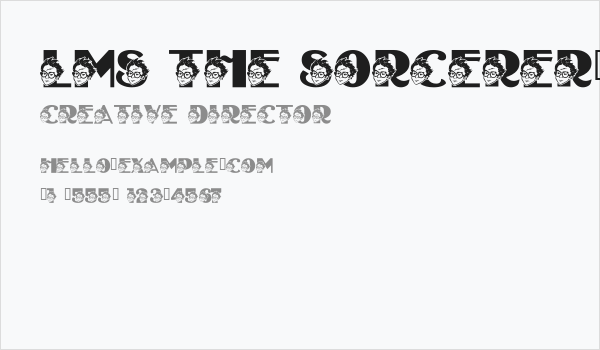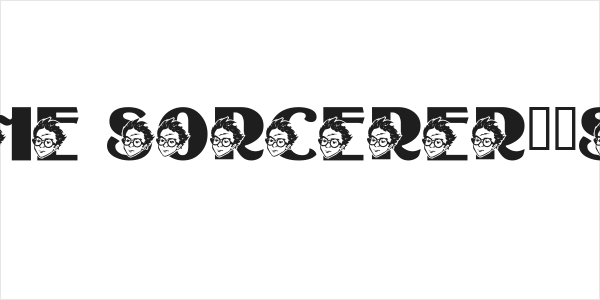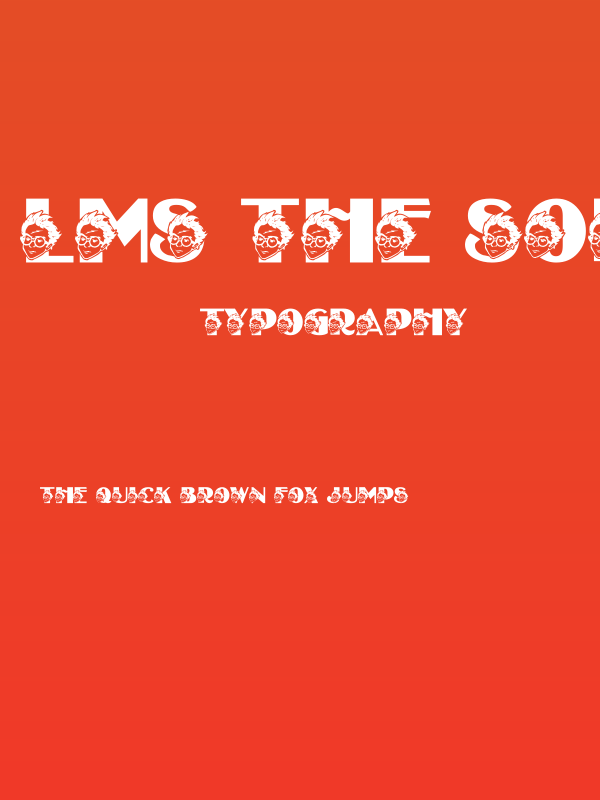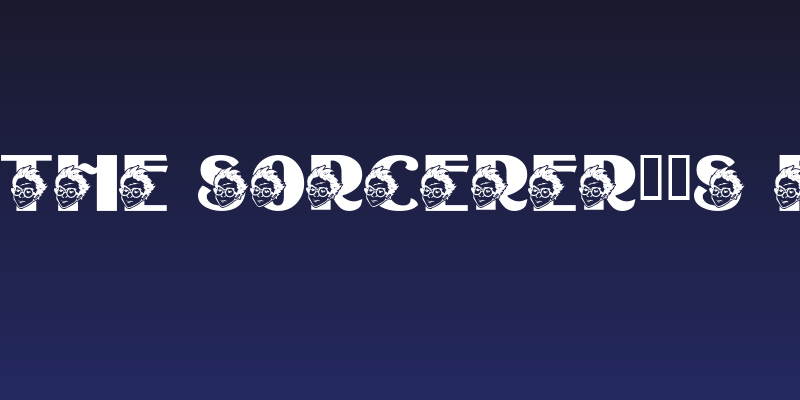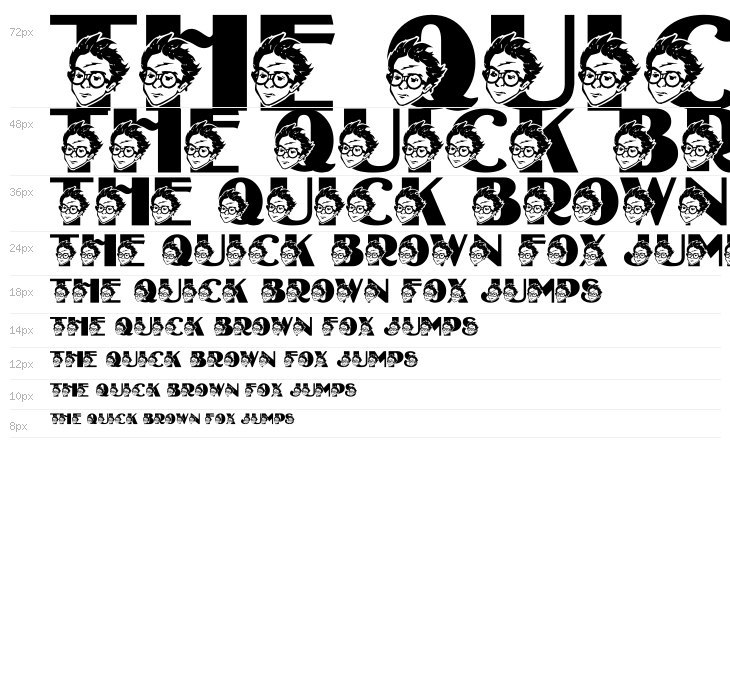
LMS The Sorcerer's Font Font
LMS The Sorcerer's Font Description
This font features a unique and playful design, incorporating a whimsical character illustration within each letter and number. The bold, blocky letters are interspersed with a cartoon-like face, adding a magical and enchanting touch to the overall appearance. The font maintains a consistent style across uppercase, lowercase, and numeric characters, making it suitable for creative and themed projects. Its distinctive look is ideal for capturing attention and conveying a sense of fun and fantasy.
| Proposed Projects | Ideal for children's book covers, fantasy-themed posters, party invitations, and playful branding materials. |